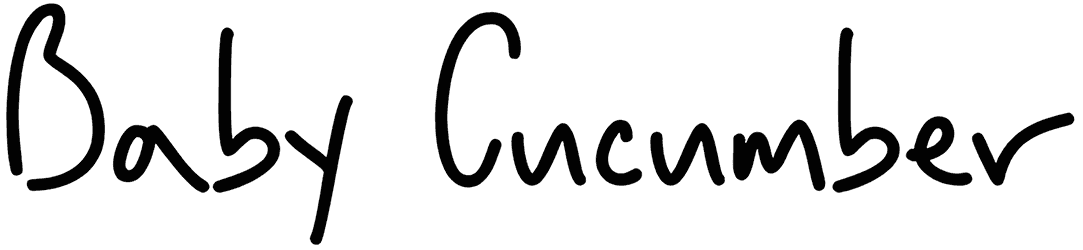
Baby Cucumber Font
A handwriting font can be a great choice if you want different types for your design. The hand-made look of the Baby Cucumber font is ideal for designing posters, flyers, food menus, logotypes, titles, and headings for children’s designs.
It saves your time by cutting straight to the best bullet journal font that is a bit unreadable, attractive, and perfect for your site. The next time you need a fanciful feel, you should try it out.
Baby Cucumber is a quirky and casual handwritten font. It will look great on blog post graphics, shop logos and on product labels. Its whimsical style makes it ideal for creating cute greeting cards and personalized items, as well as cartoon or comic-themed projects.